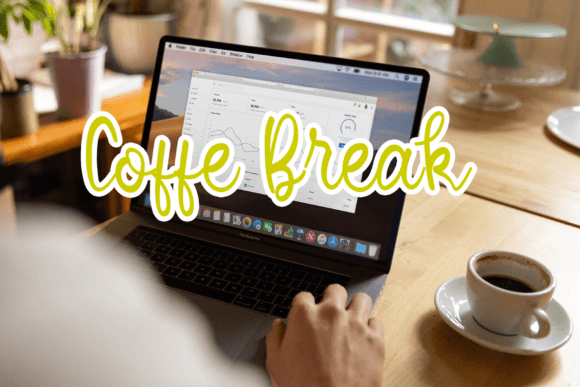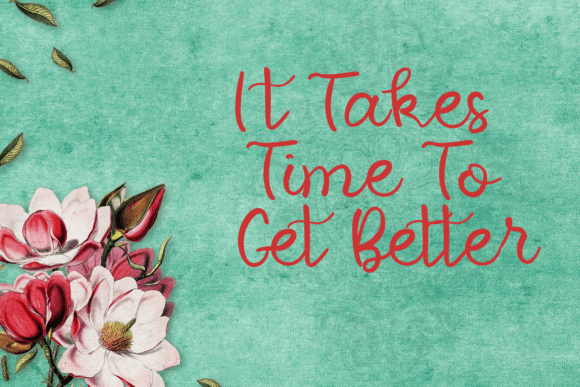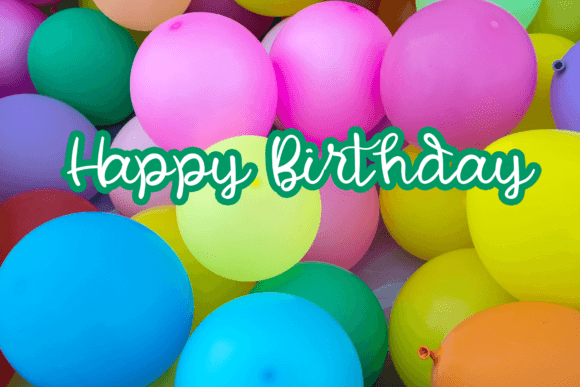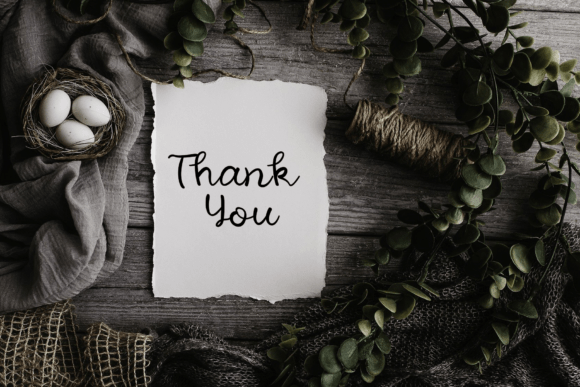
The Beautiful Font: Adding a Touch of Elegance and Whimsy to Your Designs
Are you looking for a font that can add a touch of elegance and whimsy to your designs? Look no further than the Beautiful Font, a sweet and friendly handwritten font that’s perfect for a variety of creative projects. In this article, we’ll take a closer look at the Beautiful Font, its features, and how you can use it to take your designs to the next level.
What is the Beautiful Font?
The Beautiful Font is a fresh and neat handwritten font that’s ideal for writing wedding invitations, cards, or any other design that might need a fun touch. Its sweet and friendly vibe makes it perfect for designers and crafters who want to add a personal touch to their work. Whether you’re creating a romantic wedding invitation or a playful greeting card, the Beautiful Font is sure to impress.
Key Features of the Beautiful Font
So, what makes the Beautiful Font so special? Here are some of its key features:
- Handwritten style: The Beautiful Font has a beautiful handwritten style that’s perfect for adding a personal touch to your designs.
- Fresh and neat: The font is fresh and neat, making it easy to read and perfect for a variety of creative projects.
- Sweet and friendly vibe: The Beautiful Font has a sweet and friendly vibe that’s perfect for designers and crafters who want to create a warm and inviting atmosphere.
- Versatile: The font is versatile and can be used for a variety of creative projects, from wedding invitations to greeting cards and more.
How to Use the Beautiful Font in Your Designs
Now that we’ve covered the features of the Beautiful Font, let’s talk about how you can use it in your designs. Here are some ideas to get you started:
- Wedding invitations: The Beautiful Font is perfect for wedding invitations, adding a touch of elegance and whimsy to your design.
- Greeting cards: Use the Beautiful Font to create playful and personalized greeting cards for special occasions.
- Social media graphics: Add a touch of personality to your social media graphics with the Beautiful Font.
- Branding and packaging: Use the Beautiful Font to create custom branding and packaging that stands out from the crowd.
Tips for Getting the Most Out of the Beautiful Font
Here are some tips for getting the most out of the Beautiful Font:
- Experiment with different sizes and colors: Don’t be afraid to experiment with different sizes and colors to find the perfect combination for your design.
- Pair it with other fonts: The Beautiful Font pairs well with other fonts, so don’t be afraid to get creative and try out different combinations.
- Use it consistently: Use the Beautiful Font consistently throughout your design to create a cohesive look.